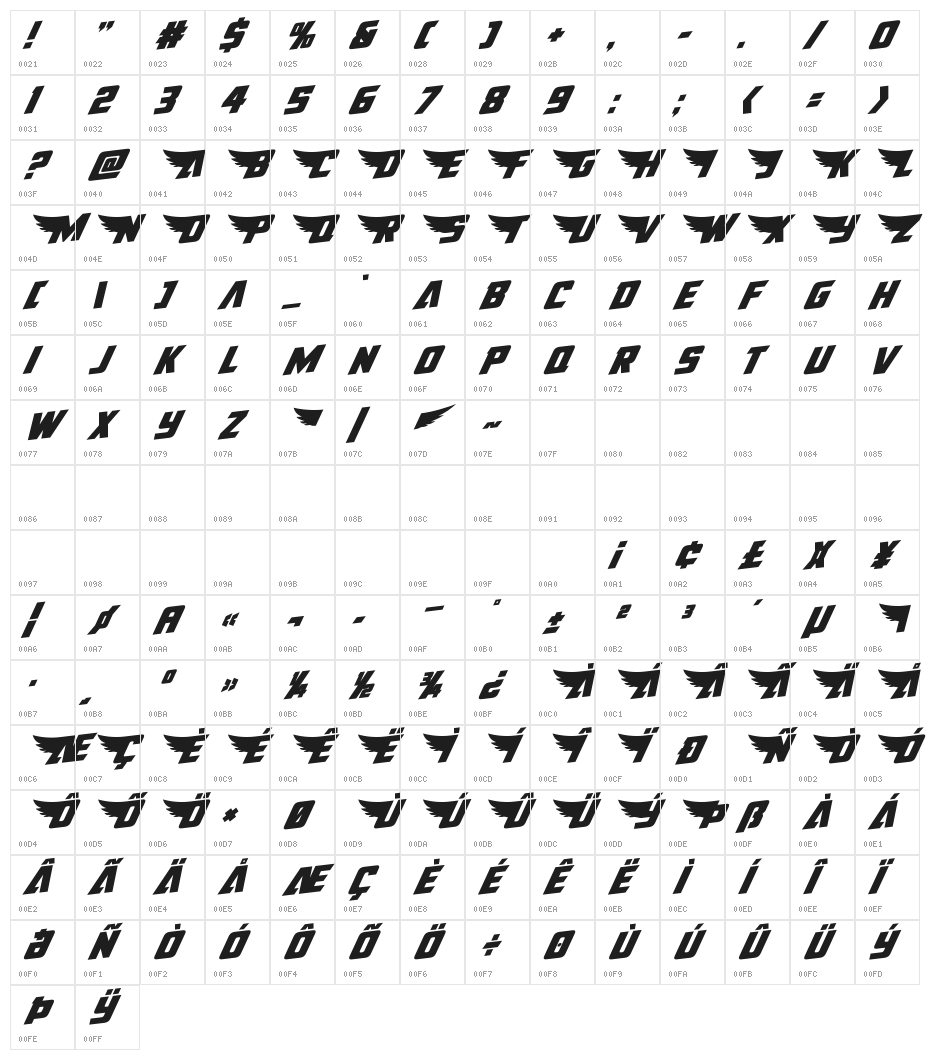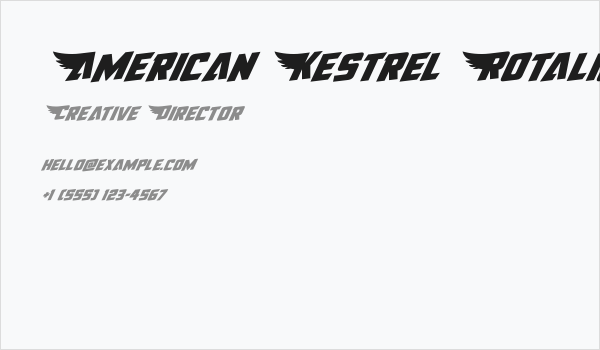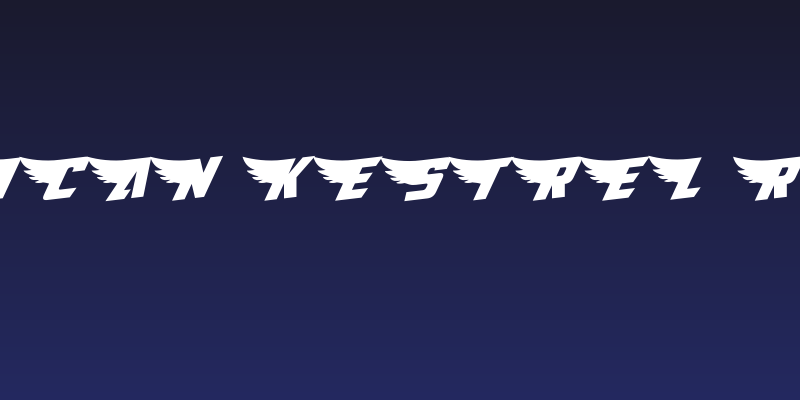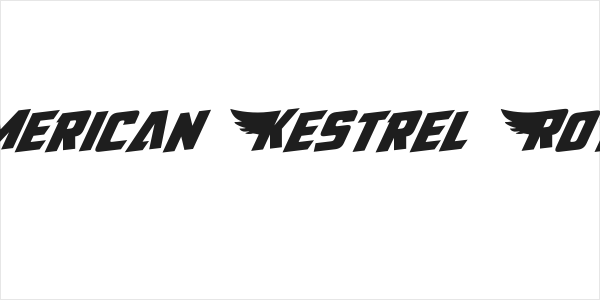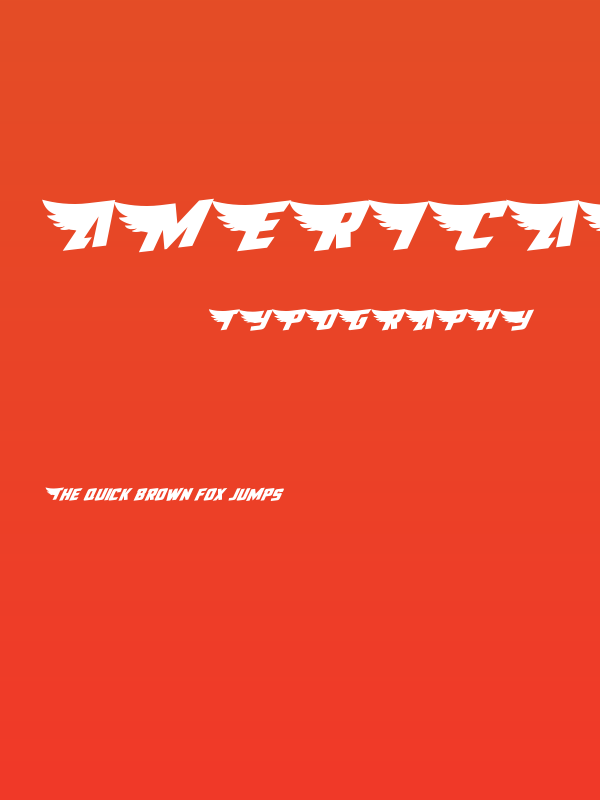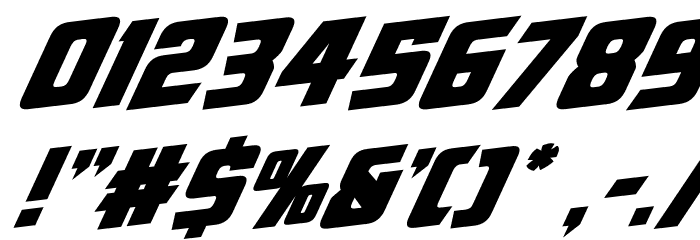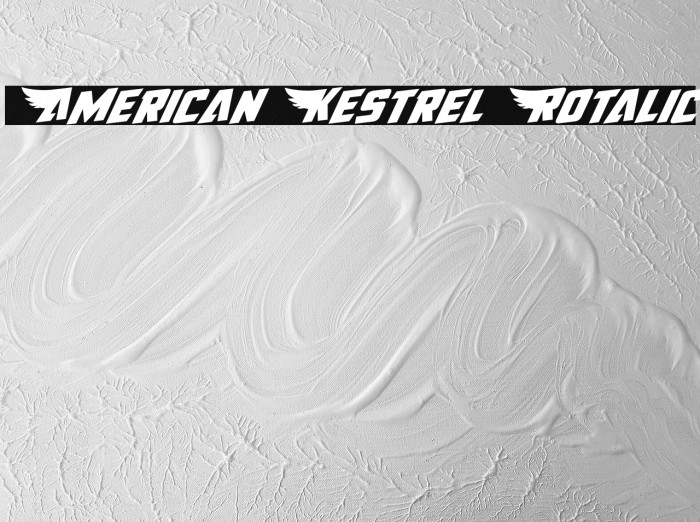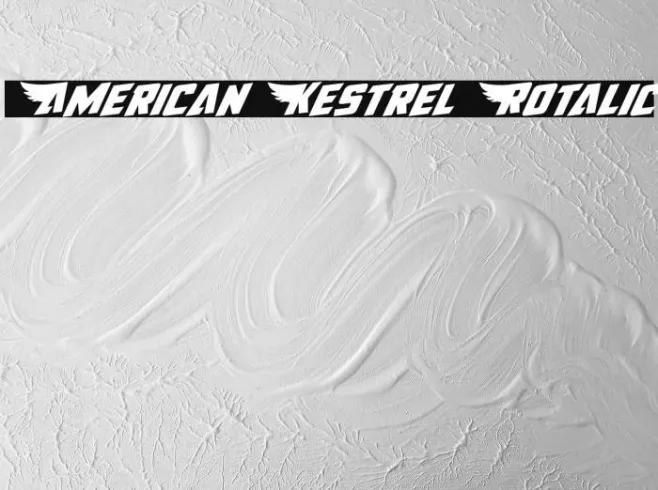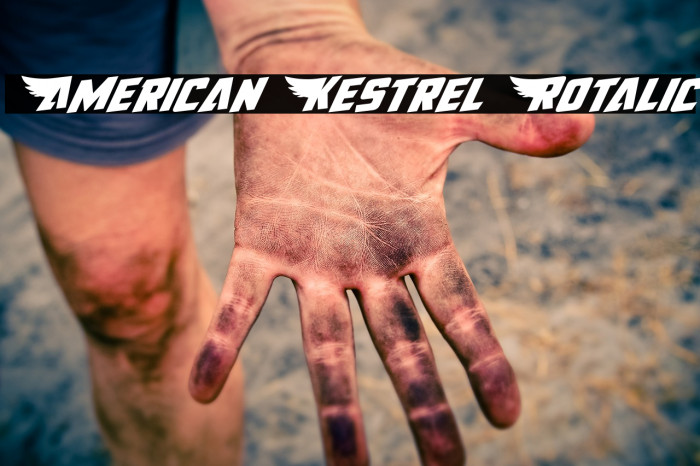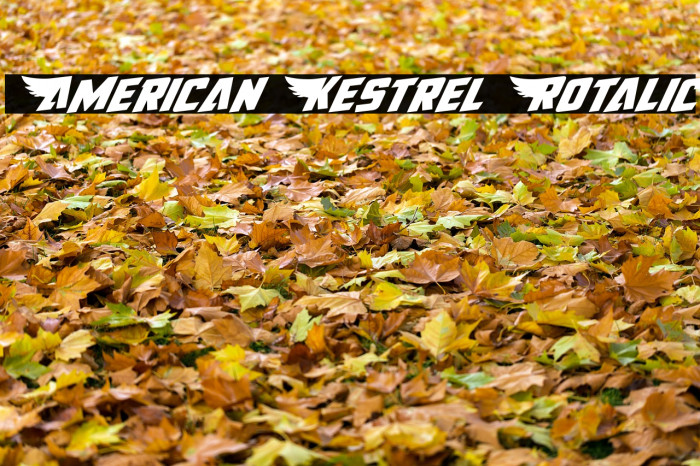
American Kestrel Rotalic Font
American Kestrel Rotalic Description
This font features a bold and dynamic style with a distinct slant, giving it a sense of motion and energy. The uppercase letters are prominent, with sharp angles and a slightly condensed form, creating a powerful visual impact. The lowercase letters maintain the same energetic slant, ensuring consistency throughout the typeface. The numerals are equally bold, matching the assertive style of the alphabet. Special characters are designed with the same angular and bold characteristics, making them stand out. The overall design is reminiscent of speed and agility, making it suitable for projects that require a strong and dynamic presence.
| Proposed Projects | Ideal for sports branding, automotive designs, action movie posters, and dynamic logo creation. |